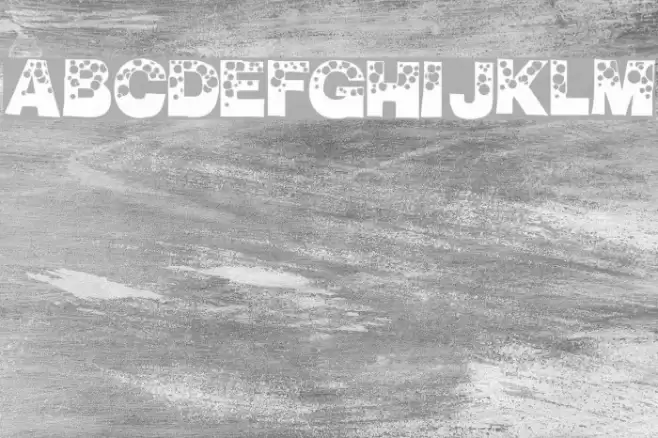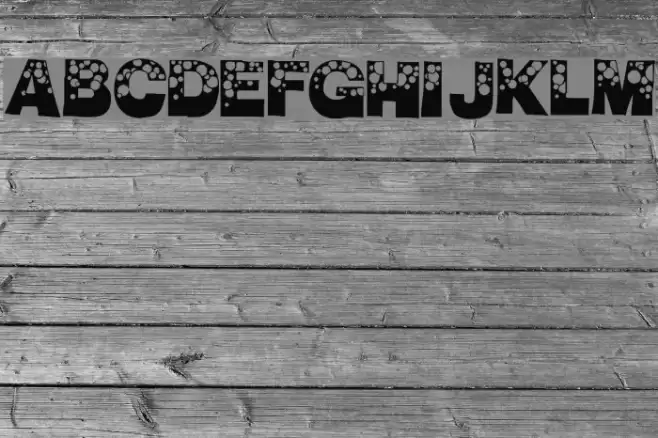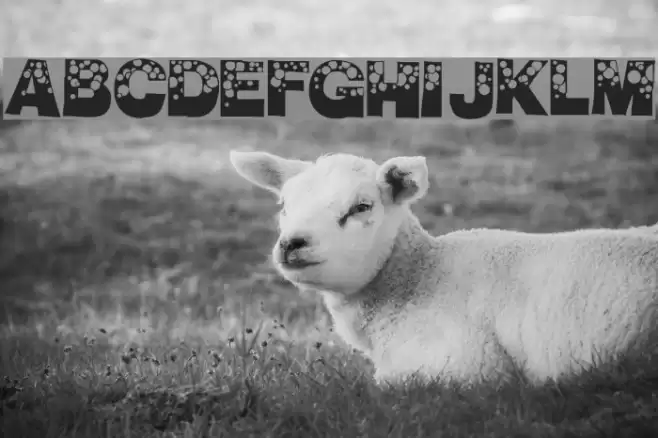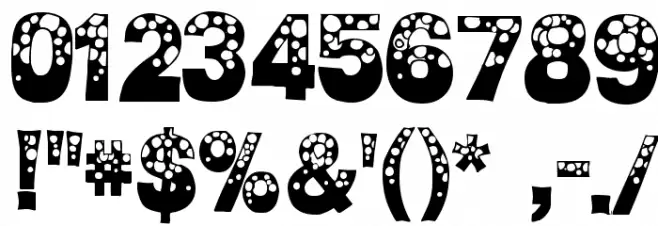
BubbleMan Font
BubbleMan Description
This playful and bold font features a unique bubble-like design within each character, creating a sense of fun and whimsy. The letters are thick and rounded, with a consistent pattern of circular cutouts that resemble bubbles, adding a dynamic and eye-catching element. The font maintains a uniform thickness throughout, ensuring readability while still offering a decorative flair. Its distinct style makes it ideal for projects that require a touch of creativity and lightheartedness.
A bold, playful font with bubble-like cutouts for a whimsical effect from bubble letter fonts.
- Proposed Projects: Ideal for children's book covers, playful branding, party invitations, and creative posters.
- Overall Style: Playful, Whimsical